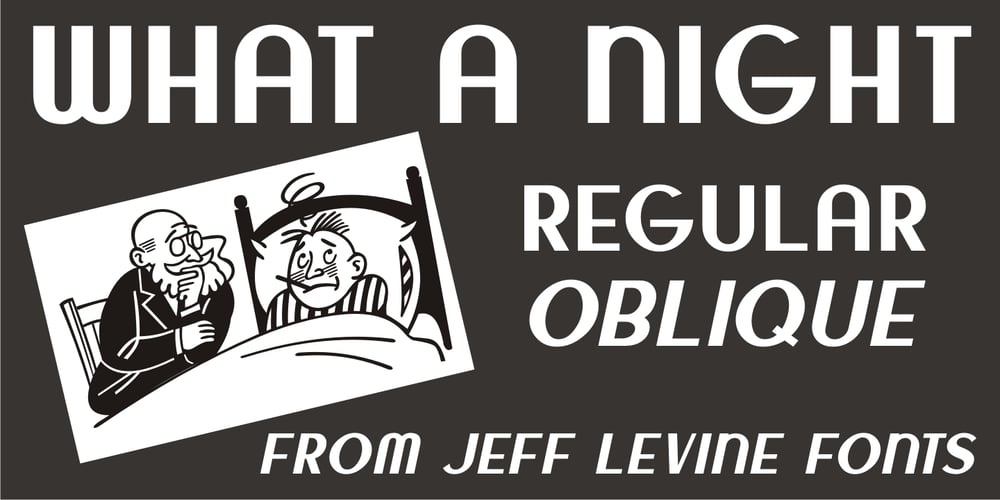
What A Night JNL Font Family was designed by Jeff Levine and published by Jeff Levine. What A Night JNL contains 2 styles and family package options. The hand lettered title on the cover of the 1934 sheet music for “What A Night” not only acted as a design model for What A Night JNL but also as its namesake. The digital type face is available in both regular and oblique versions.